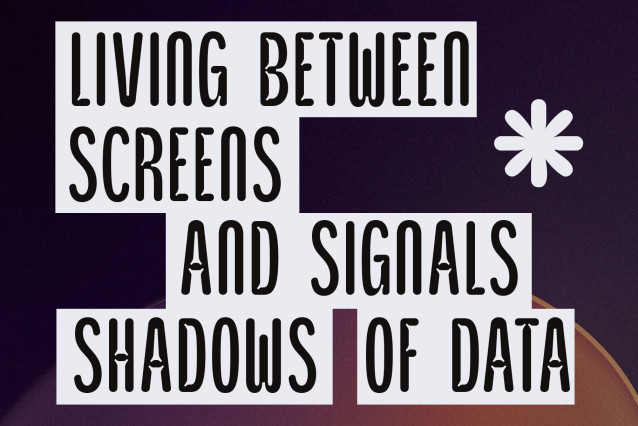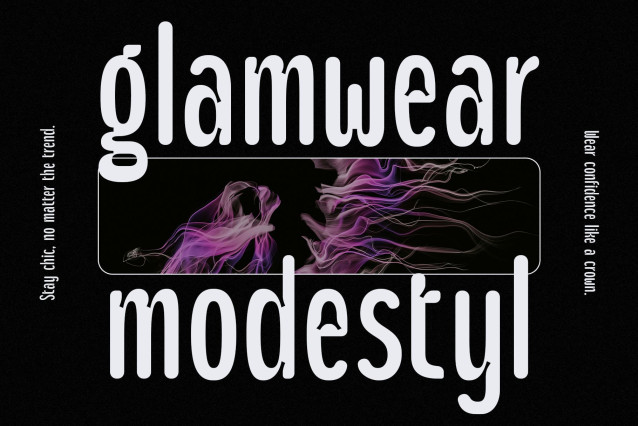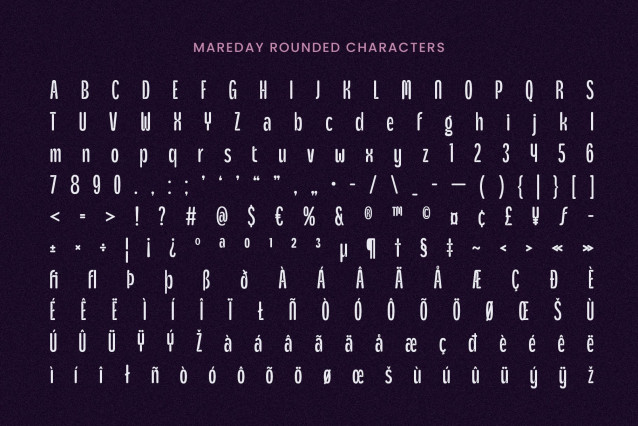
Mareday Rounded Font
Mareday Rounded Font is a modern sans-serif font that combines a condensed structure with a clean, contemporary design. The slim letterforms and narrow proportions give it a compact appearance, making it ideal for designs that need to maximize space while maintaining clarity.